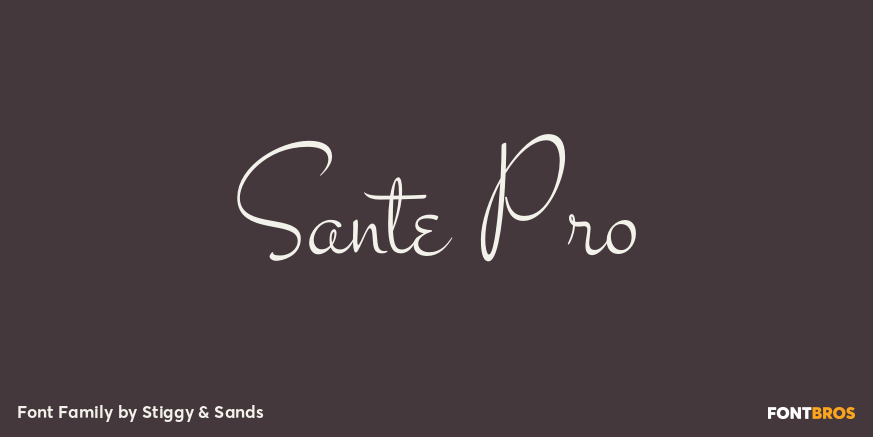
Sante Pro
About Sante Pro
Our Sante Pro is a script of vintage origins with modern flair. This script embodies holiday and special event celebrations in its styling while exuding a confidence and carefree attitude. It makes a bold statement in any design. This script is loaded…